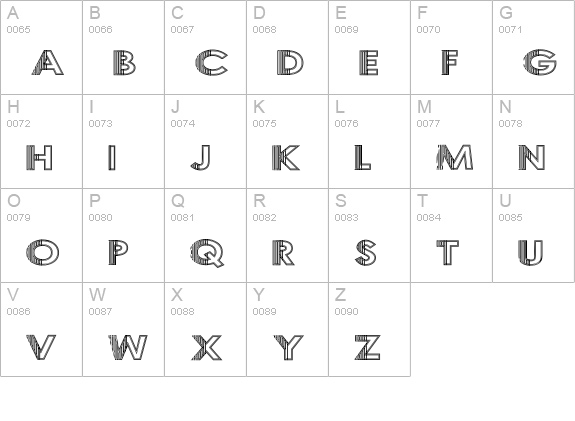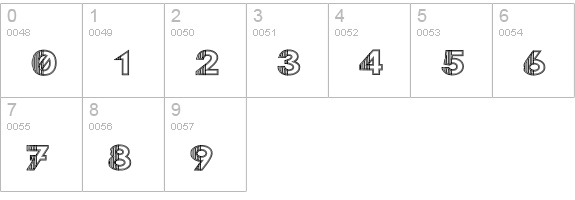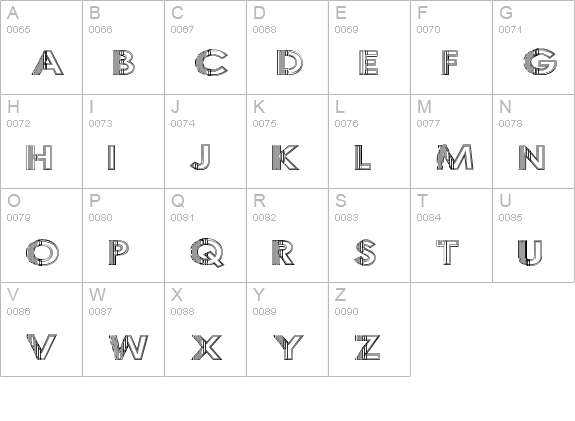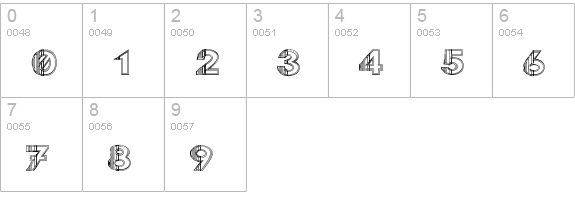
Sliced Iron Font Details
Introducing Sliced Iron, a bold and striking font that exudes strength and power. This unique typeface captivates with its jagged edges and industrial aesthetic, reminiscent of metal being sliced with precision. Sliced Iron is the perfect choice for designs that demand attention and convey a sense of ruggedness. With its sharp angles and carefully crafted details, Sliced Iron adds a touch of edginess to any project. Whether used in headlines, logos, posters, or branding materials, this font commands attention and leaves a lasting impression. Its versatility allows it to be used in a variety of design styles, from futuristic and modern to vintage and grunge. But what makes Sliced Iron even more appealing is that it is available for free. That's right, this remarkable font can be downloaded at no cost from FontsMarket.com. Embracing the concept of accessibility, the creators of Sliced Iron wanted to ensure that designers and enthusiasts alike could unleash their creativity without any limitations. So go ahead and download Sliced Iron from FontsMarket.com today. Discover the power of this remarkable font and let it transform your designs into works of art. With its bold presence and striking appeal, Sliced Iron is sure to make a lasting impression on any project it graces.